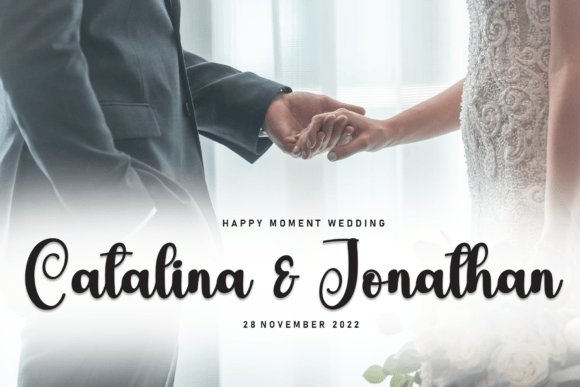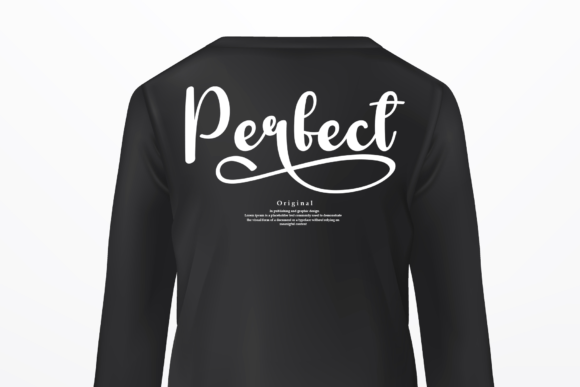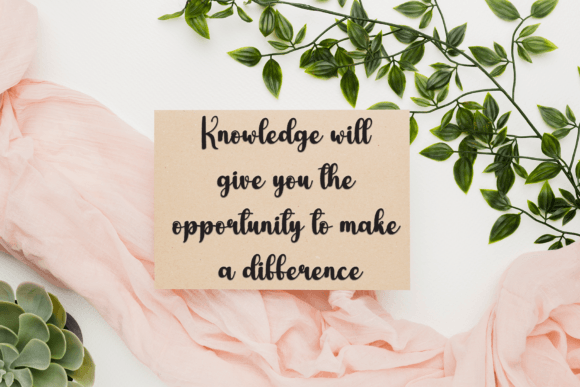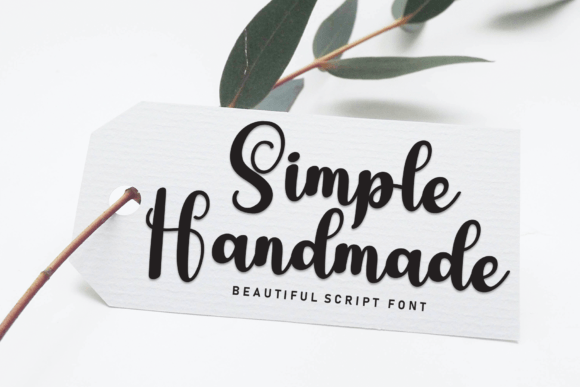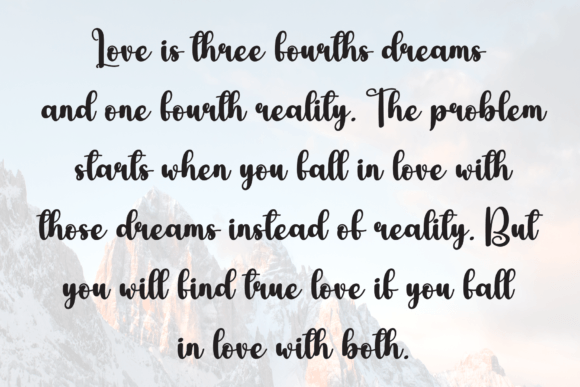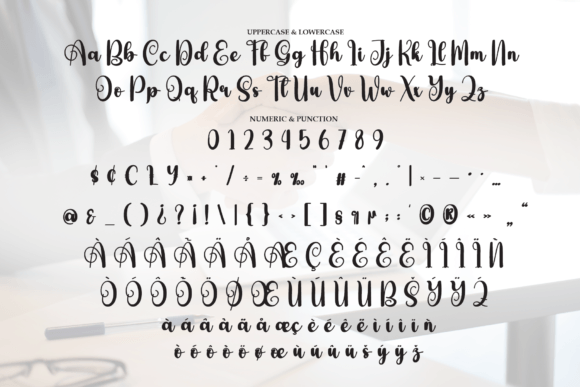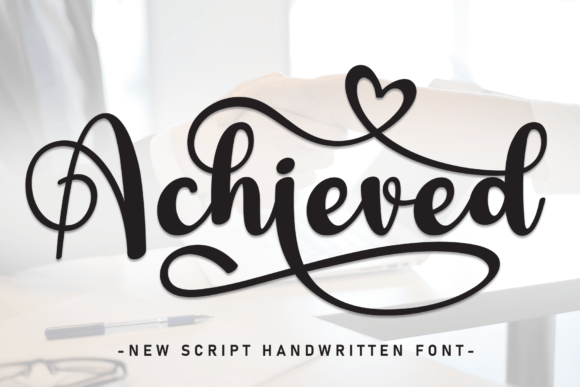
The Designer’s Delight: Achieved Font
Have you ever been in the middle of a design project, and suddenly, you’re stuck on finding the perfect font? I recall a recent experience where I was working on a branding project for a luxury client, and I just couldn’t seem to find a font that exuded elegance and sophistication. That’s when I stumbled upon the Achieved font, and it was love at first sight! 💕
Achieved Font: The Perfect Elegance
Achieved is a flowing handwritten font that boasts an elegant touch, making it perfect for your favorite projects. Its incredibly distinct and timeless style will surely make your designs stand out. With Achieved, you can create spectacular designs that will leave a lasting impression on your clients or audience.
Here’s what I love about Achieved:
• ✨ Elegant and sophisticated feel
• 💫 Perfect for luxury branding, wedding designs, and high-end marketing materials
• 🎨 Versatile and can be used for both digital and print projects
However, I did notice a few small quirks:
• 🤔 Some letters may appear a bit too connected, which can make it difficult to read at very small font sizes
• ⚠️ Limited availability of stylistic alternates, which may limit its use in certain design projects
The Designer Inspiration Behind Achieved
The Achieved font was designed with elegance and sophistication in mind. Its creator aimed to craft a font that would exude luxury and refinement, while still being highly legible and versatile. The result is a beautiful, flowing script font that’s perfect for a wide range of design projects.
What type of projects is Achieved suitable for? Achieved is perfect for luxury branding, wedding designs, high-end marketing materials, and creative projects that require an elegant touch.
Is Achieved a difficult font to read? No, Achieved is highly legible, even at small font sizes. However, some letters may appear a bit too connected, which can make it difficult to read at very small font sizes.
Does Achieved support OpenType features? Yes, Achieved supports OpenType features, such as ligatures and stylistic alternates, which can add a personal touch to your designs.